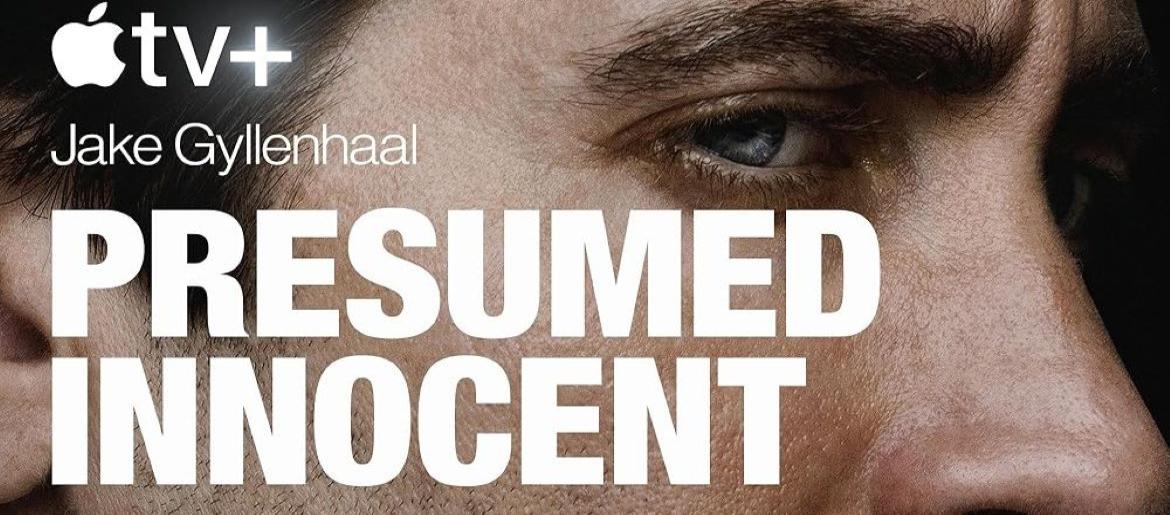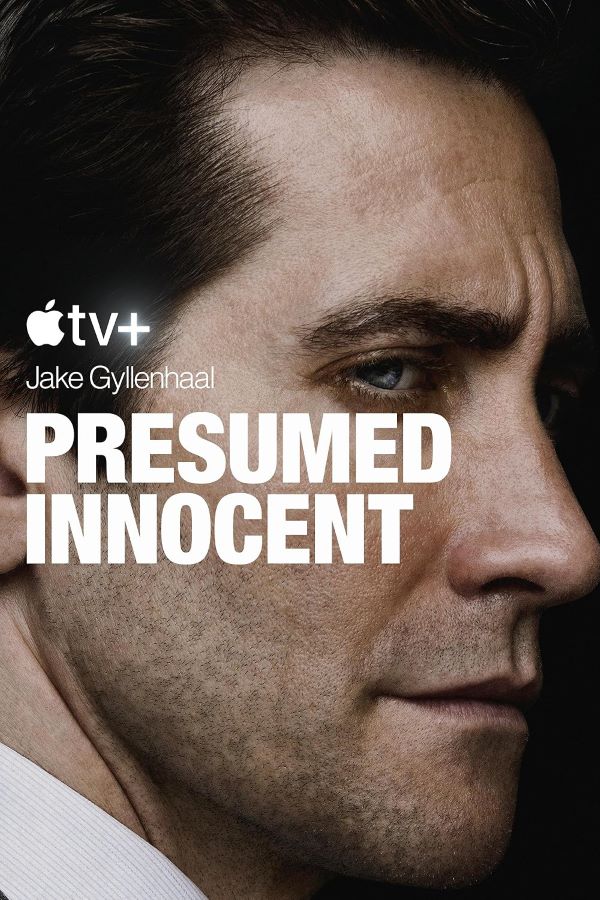
Presumed Innocent Font
What Font is Presumed Innocent?
The Presumed Innocent Font is most likely Neue Helvetica Pro 97 Condensed Black, a bold and tightly structured sans-serif typeface that reflects the show’s tense, dramatic tone. Its clean lines and compressed style convey authority and precision, making it a fitting choice for a legal thriller centered around truth, deception, and power.
About Presumed Innocent
Presumed Innocent (2024) is a legal thriller television series starring Jake Gyllenhaal. The story follows a respected prosecutor who becomes the prime suspect in the murder of one of his colleagues. As he fights to prove his innocence, secrets from his past resurface, blurring the line between guilt and truth. With gripping performances and an atmosphere of constant tension, Presumed Innocent delivers a masterful blend of courtroom drama and psychological suspense.